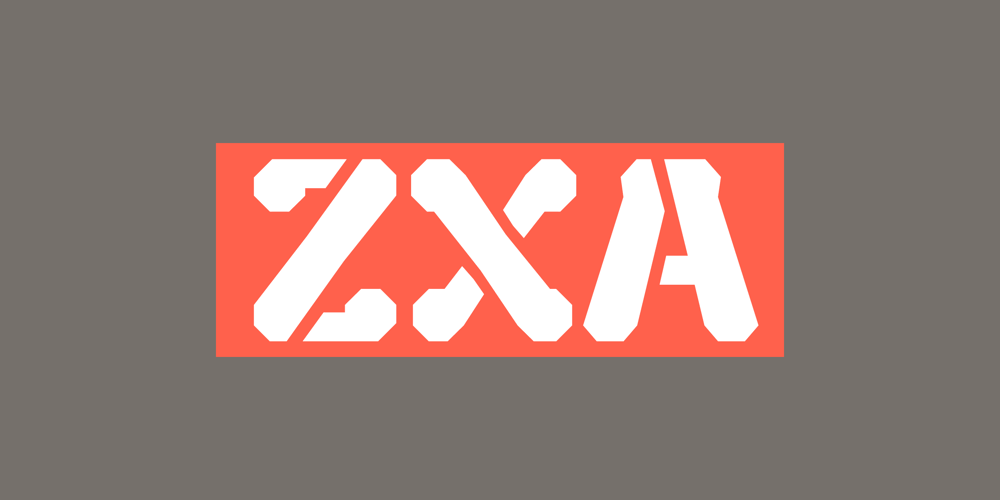
ZXA font
ZXA Font Family was designed by Ryoichi Tsunekawa and published by Dharma Type. ZXA contains 2 styles and family package options. Experimental 90s geometric type. Regular and Stencil.